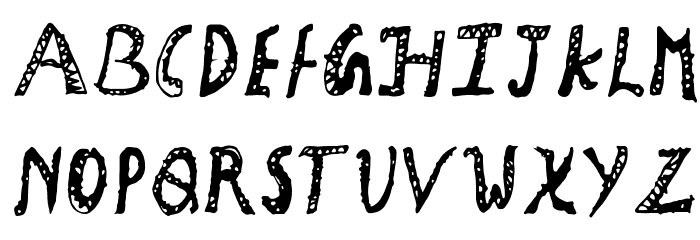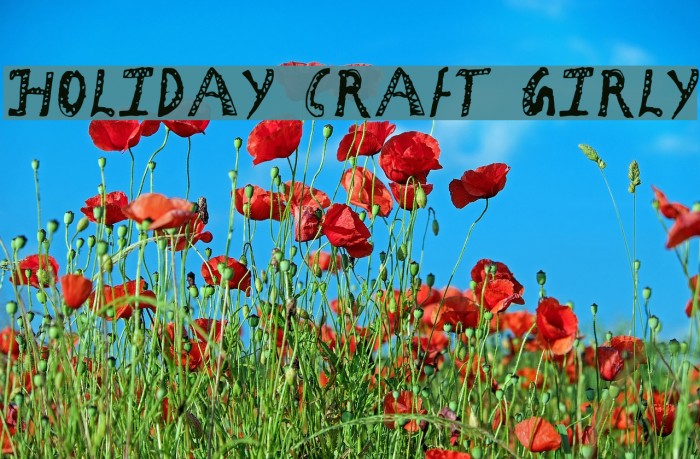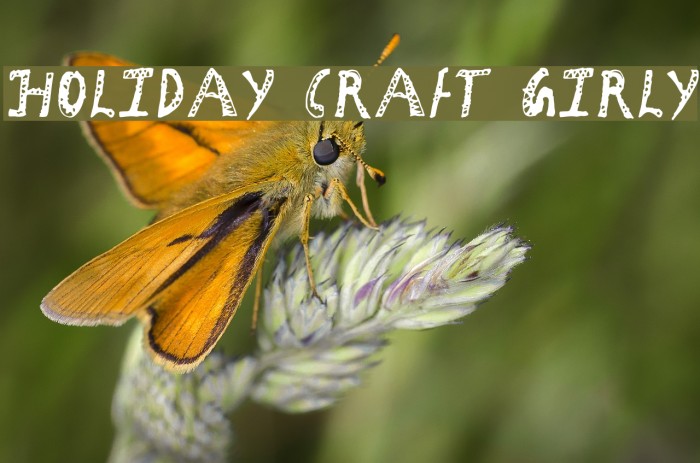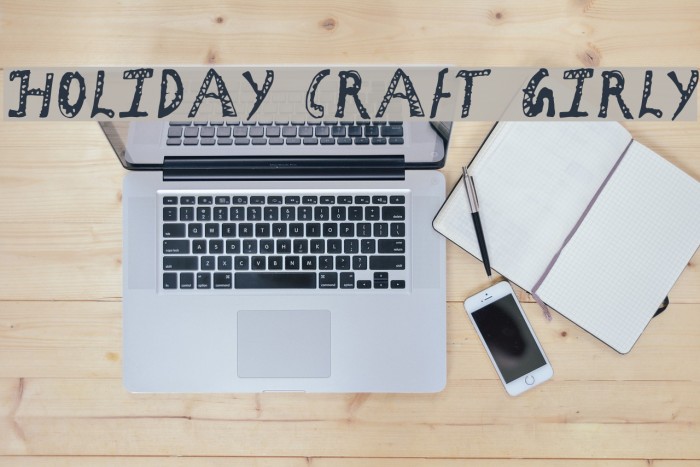
Holiday Craft Girly Font
This playful and whimsical font features a hand-drawn style with a unique, decorative flair. Each character is adorned with intricate patterns and textures, giving it a crafty, artistic feel. The letters are bold and slightly irregular, adding to the charm and personality of the design. The font's quirky and fun appearance makes it ideal for creative projects that require a touch of individuality and flair. Its decorative nature is perfect for holiday-themed designs, crafts, and any project that aims to convey a sense of joy and creativity.
A playful, hand-drawn font with decorative patterns and a whimsical style.
- Proposed Projects: Ideal for holiday cards, craft projects, children's book covers, and playful branding.
- Use Case: Headlines, Logos, Craft projects